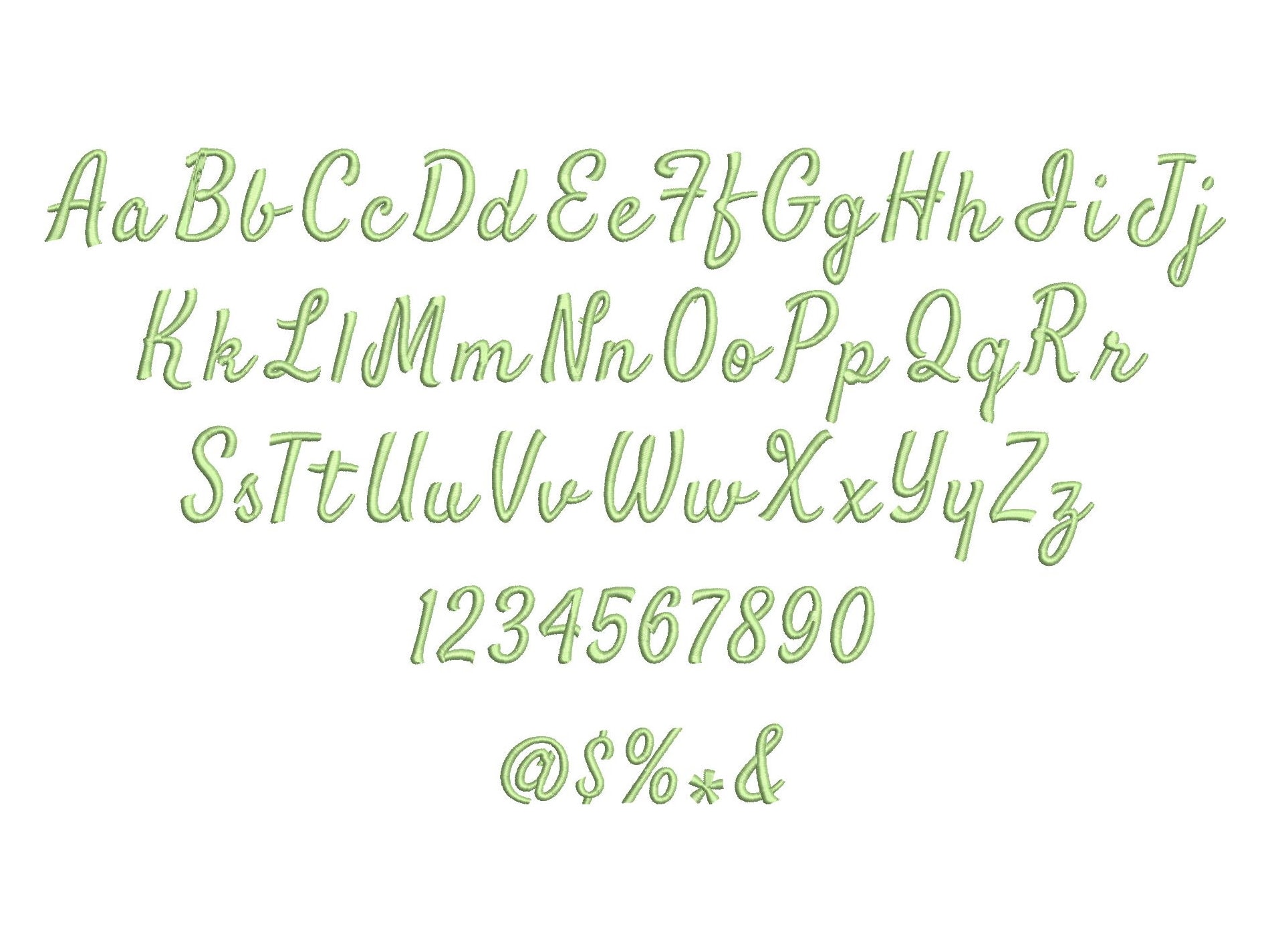
Cursive handwriting Font machine embroidery designs assorted sizes from 1" up to 3.5" handwritten alphabet letters monogram, BX included
Uppercase and lowercase letters, numbers, and special signs.